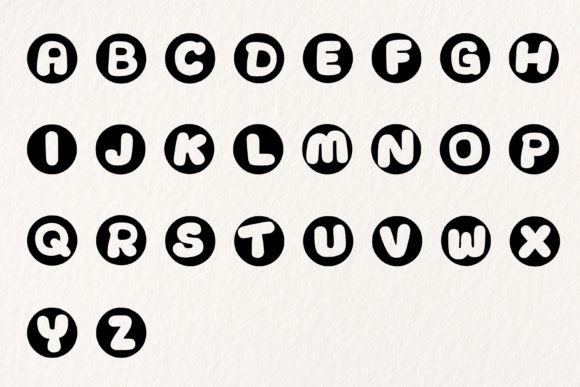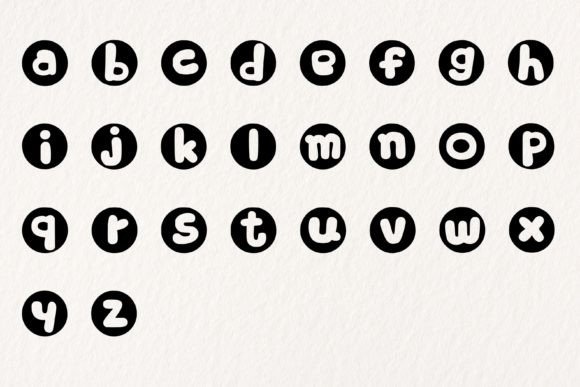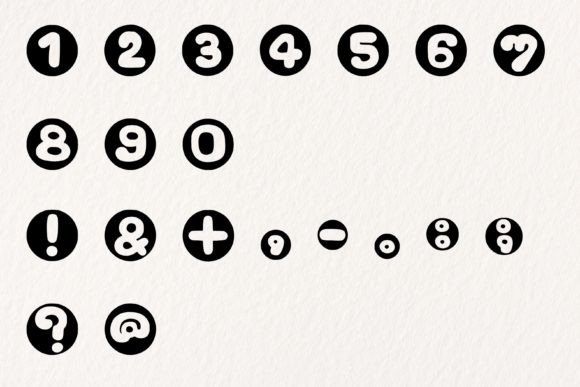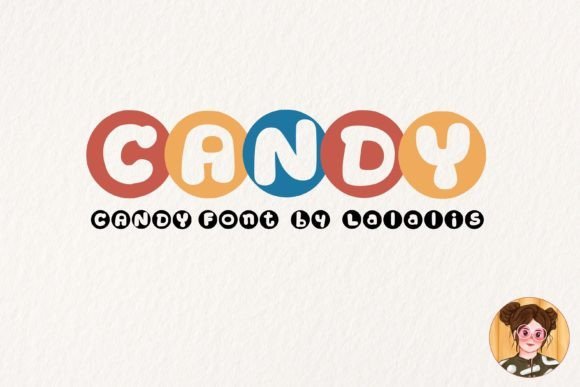
Candy for Your Eyes: The Sweet Delight of Candy Font
Do you remember the moment when you first discovered the magic of creative freedom? Maybe it was doodling in a notebook as a child, or experimenting with paint on a canvas as an adult. For me, it was the thrill of trying out a new font in a design project. The rush of excitement as I watched my words transform into something beautiful and unique.
Candy Font is one of those special tools that brings a smile to your face. Its colorful, bubbly letters are like wrapping your words in a sweet treat. This playful font is perfect for adding a touch of whimsy to your designs, making it a valuable asset for designers looking to add some visual interest to their work.
Candy Font Key Features
- Unique Characteristics: The Candy Font features a playful, hand-drawn design with bold lines and vibrant colors, making it perfect for adding a touch of whimsy to designs.
- Font Style: The Candy Font is available in a single style, but it can be used in a variety of font weights and sizes to add depth and interest to designs.
- Language Support: The Candy Font supports a wide range of languages, including Latin, Cyrillic, and Greek scripts, making it a versatile choice for global designs.
Candy Font Review
I must say, I was initially drawn to the Candy Font due to its playful and whimsical vibe ✨. The font is perfect for designers looking to add a touch of sweetness to their projects, whether it’s a children’s book, a candy-themed website, or even a social media campaign.
- The font is incredibly versatile and can be used in a variety of contexts.
- The different weights and styles available make it easy to create a consistent look throughout a design.
- The font’s unique design elements, such as the rounded edges and colorful accents, add a touch of personality to any design.
However, I do have a few concerns with the font ⚠️. One major issue is the lack of consistency in the font’s spacing and kerning. This can make the text look a bit uneven at times, which can be distracting for the viewer.
Another limitation is the font’s limited support for certain languages. If you’re designing for a global audience, you may need to use a different font to ensure that your text is readable.
Overall, I think the Candy Font is a fun and creative option for designers, but it may not be the best choice for more serious or professional projects. With a bit more refinement and attention to detail, I think this font could be a real showstopper ✨.
Candy Font is perfect for:
- Children’s book covers and illustrations.
- Food and